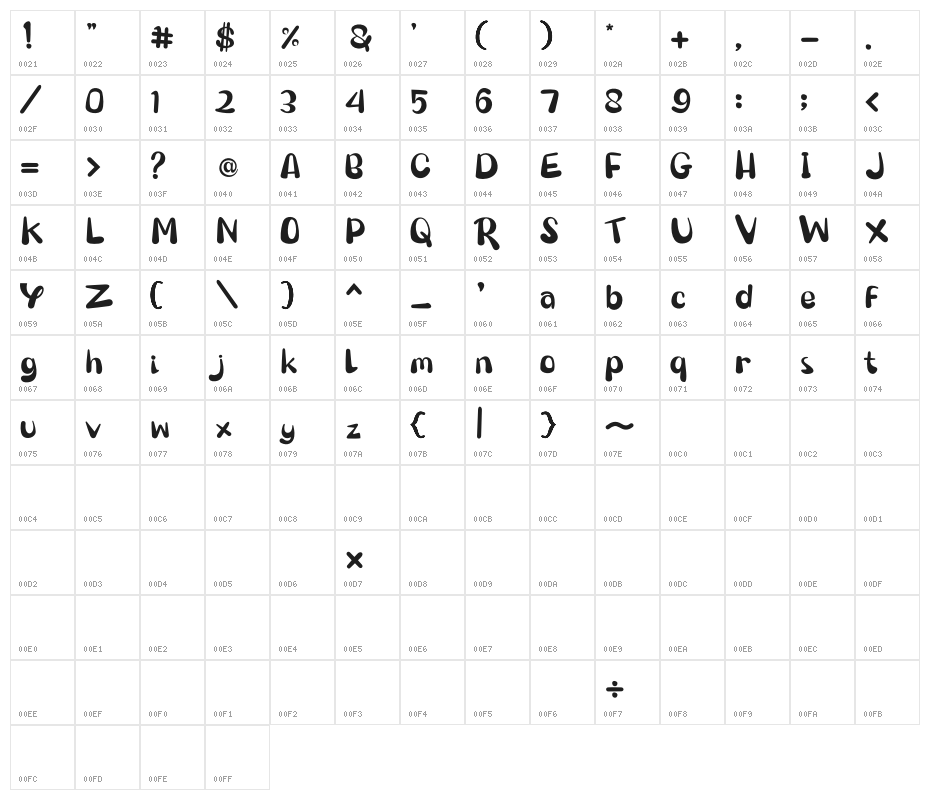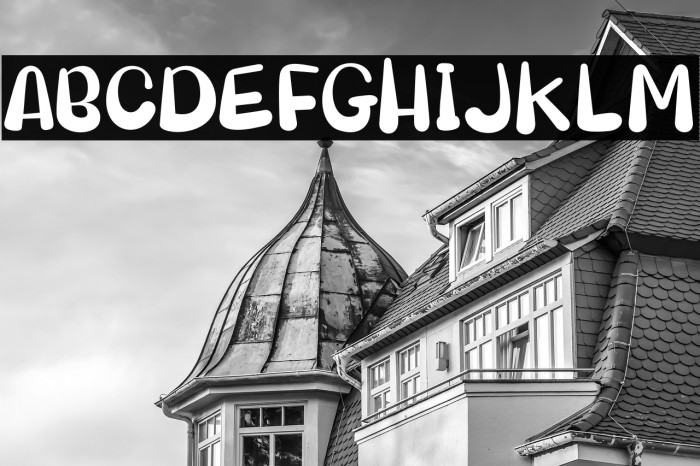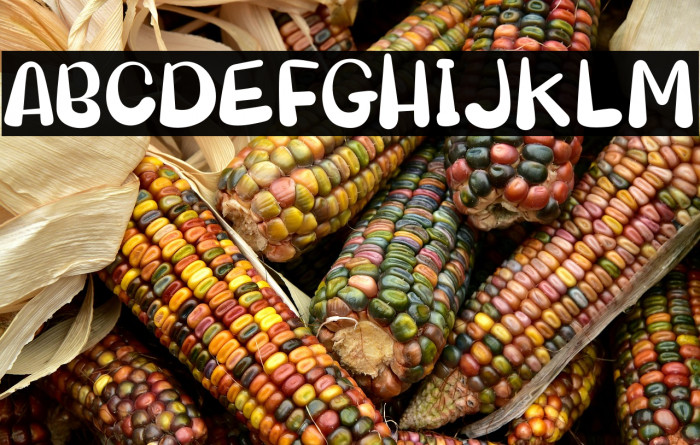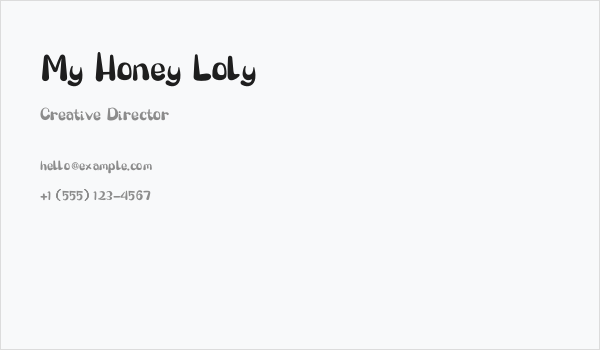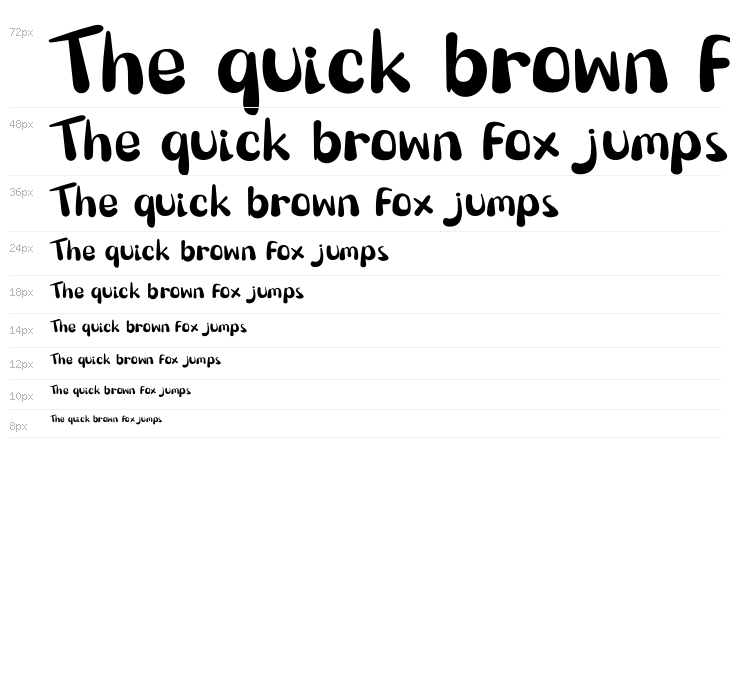
My Honey Loly Font
My Honey Loly Description
This playful and whimsical font features rounded, bold characters with a friendly and approachable style. The letters have a hand-drawn feel, with slightly uneven strokes that add to its charm. The uppercase and lowercase letters maintain a consistent style, with the lowercase letters being slightly more compact. The numbers are bold and clear, making them easy to read. Special characters are creatively designed, maintaining the font's overall playful aesthetic. This font is perfect for projects that require a fun and informal touch.
| Proposed Projects | Ideal for children's books, playful branding, greeting cards, and informal invitations. |